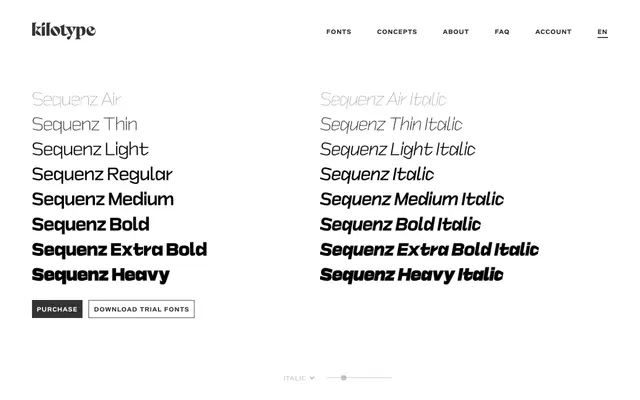
Sequenz
Kilotype · Selma Losch · 2018
Sequenz specimen from Kilotype
A text sans by Selma Losch that treats letterforms as a pattern of strokes, deliberately rethinking conventions such as crossbar height and closed apertures.
Designed by Selma Losch and released in 2018, Sequenz runs eight weights from Air to Heavy, each with a matching italic, totalling sixteen styles. Its design philosophy treats text as an alternating sequence of black and white strokes, and it questions entrenched conventions, such as whether the bar of the t must sit at x-height. The family supports over 400 languages across African, American, Asian, European and Oceanic scripts using the Latin alphabet, and includes proportional, tabular, oldstyle and circled numeral sets alongside arrows and symbols.
Sequenz is a sans-serif with experimental humanist tendencies, deliberately questioning conventional type design rules such as crossbar placement and letter closure, while remaining rooted in Latin text typography.